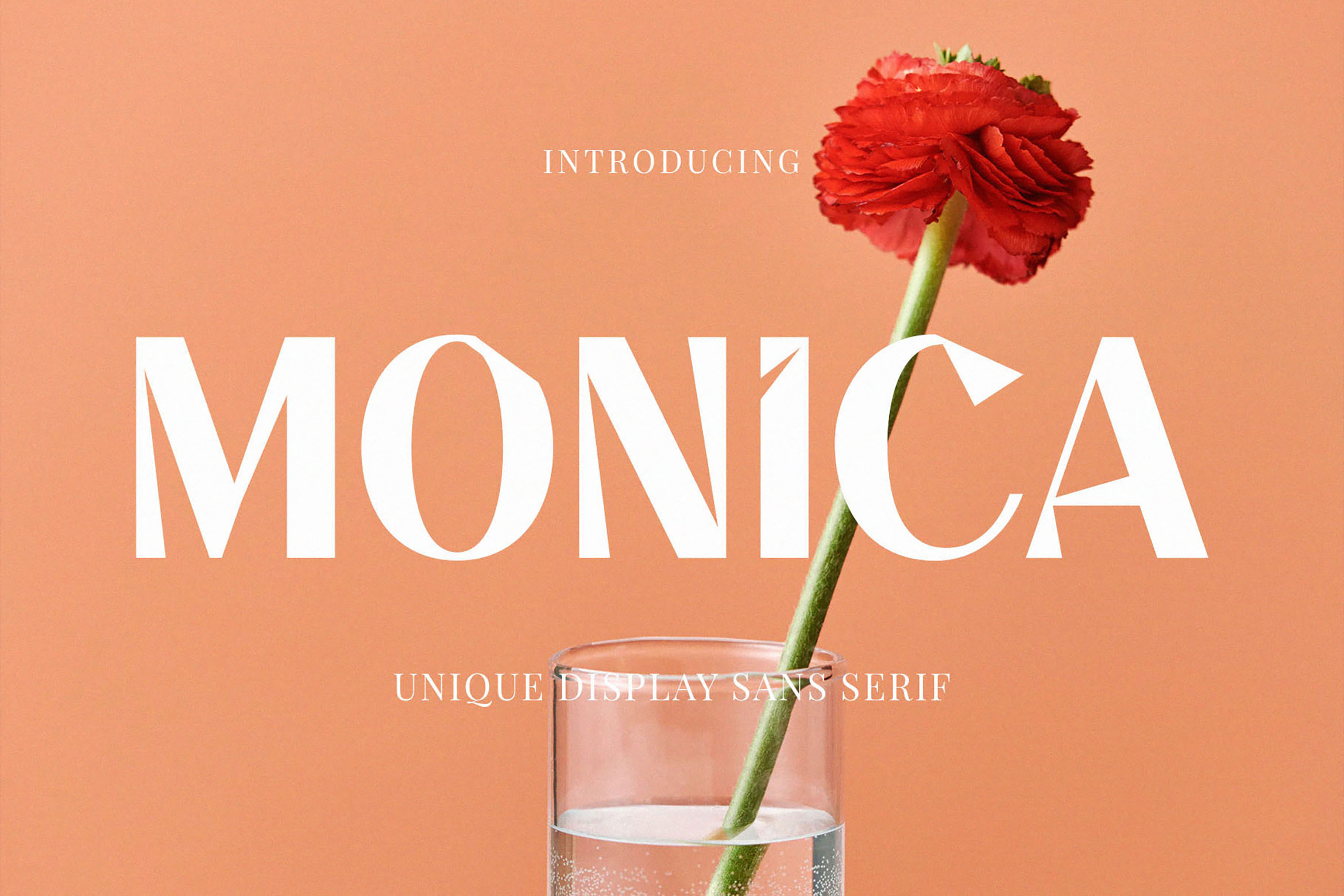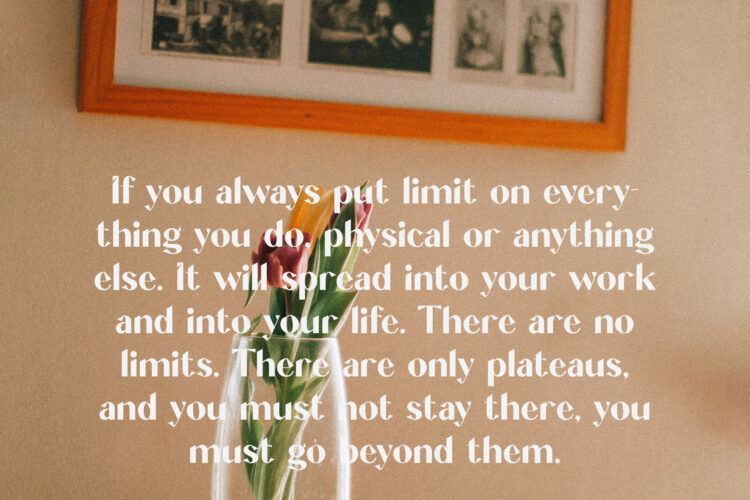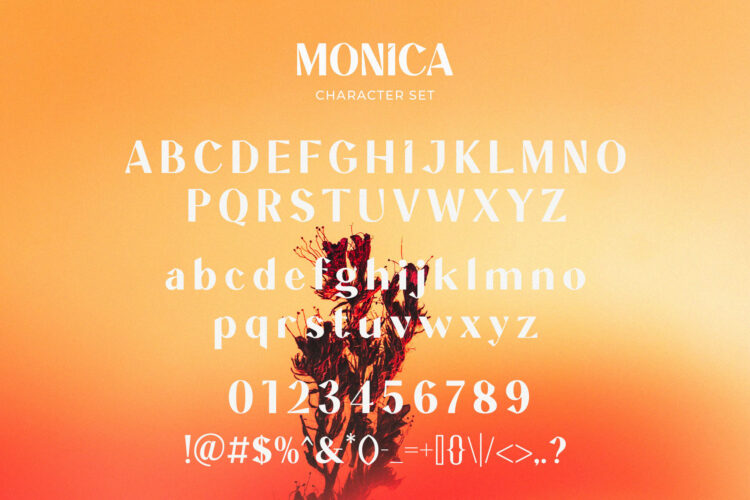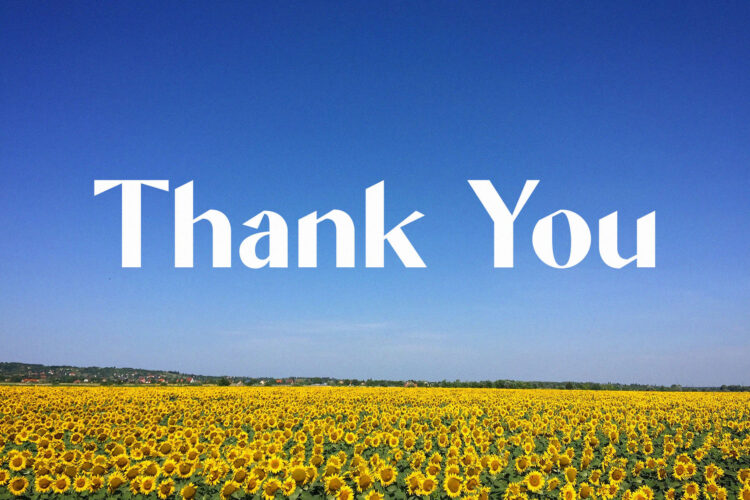
Introducing our new Monica, modern sans serif font with elegant style this is perfect for branding, logos, invitation, magazines, product packaging and more.
Monica – Unique Display Sans Serif